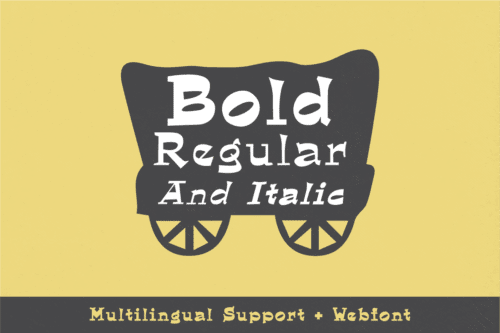
El Dorado
El Dorado is a retro font inspired by the wild west, bringing a cheerful vintage touch to your designs. It includes four styles: Regular, Italic, Bold, and Bold Italic, along with multilingual support for Eastern European, Icelandic, and Turkish languages, plus webfont files for versatile use.
El Dorado is retro font inspired by wild west life and also can give your design a cheerful vibe with vintage touch.
Including 4 font style: Regular, Italic, Bold, and Bold Italic. Also included multilingual with eastern european, icelandic, and turkish with webfont file.